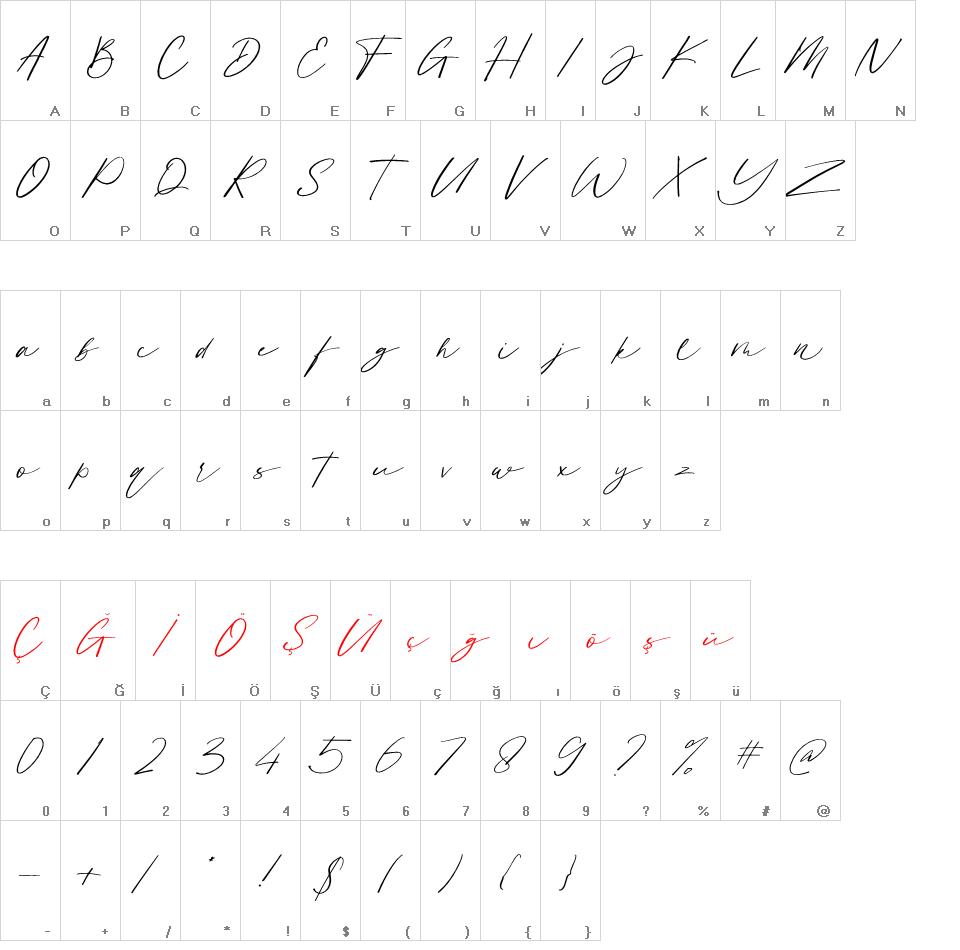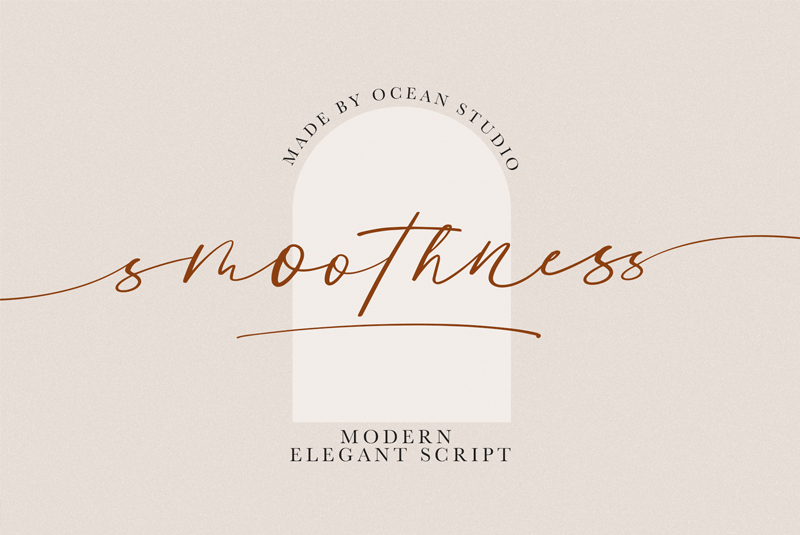
Smoothness font
Smoothness is a modern script font. Smoothness is a gorgeous organic handwritten and that looks stunning in just about every works.
With Full Multilingual support.
well-suited for advertising, branding, logotypes, packaging, titles, headlines and editorial design.
Features : Lowercase Beginning & Ending Characters, Extra Swashes & Ligatures.